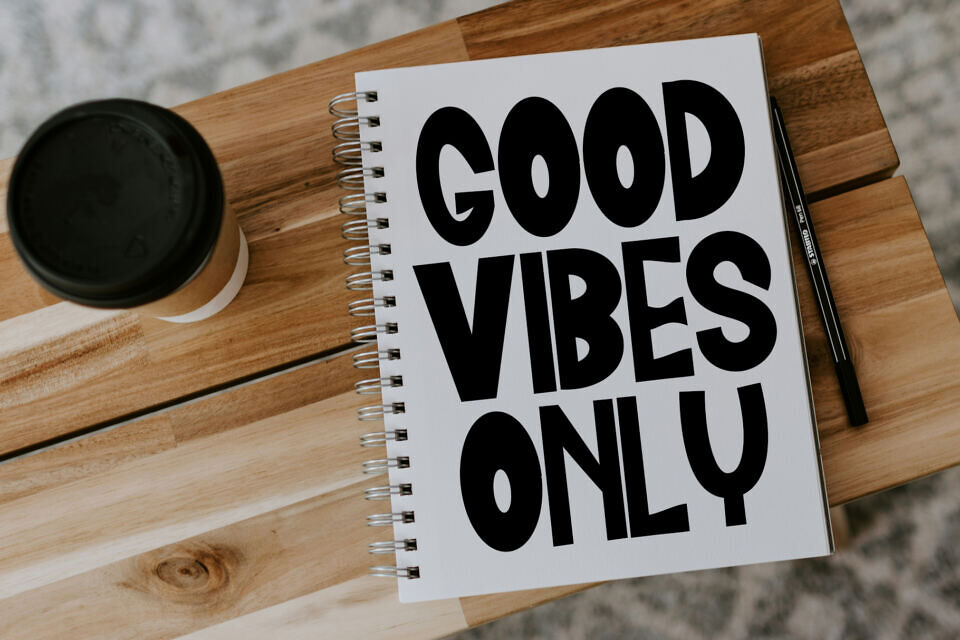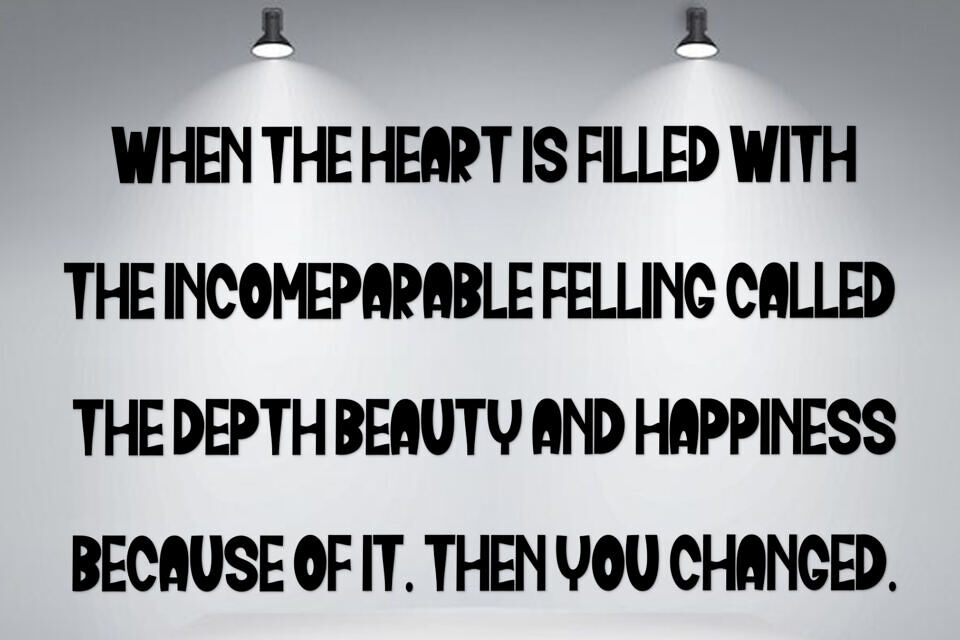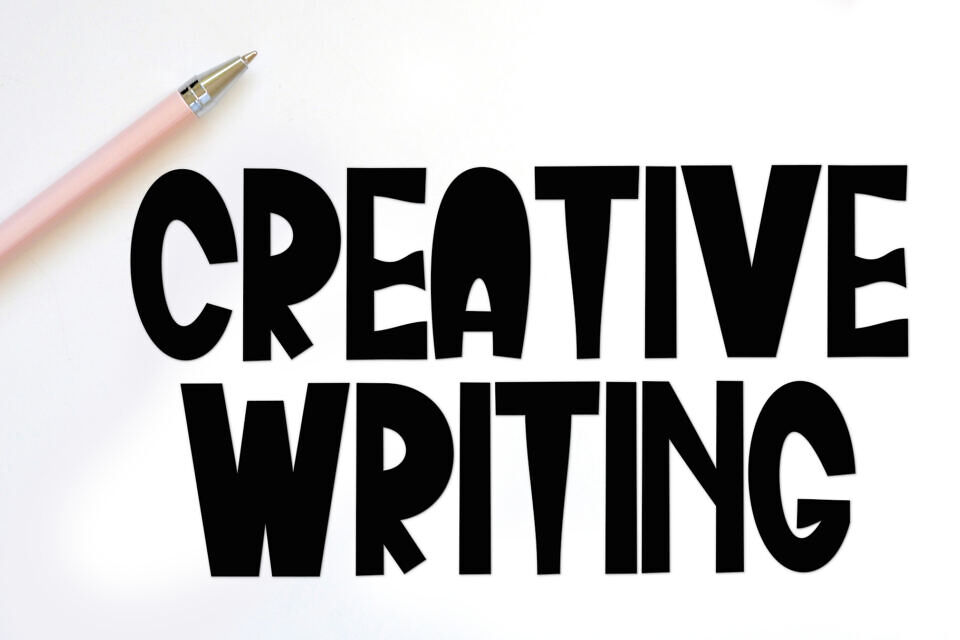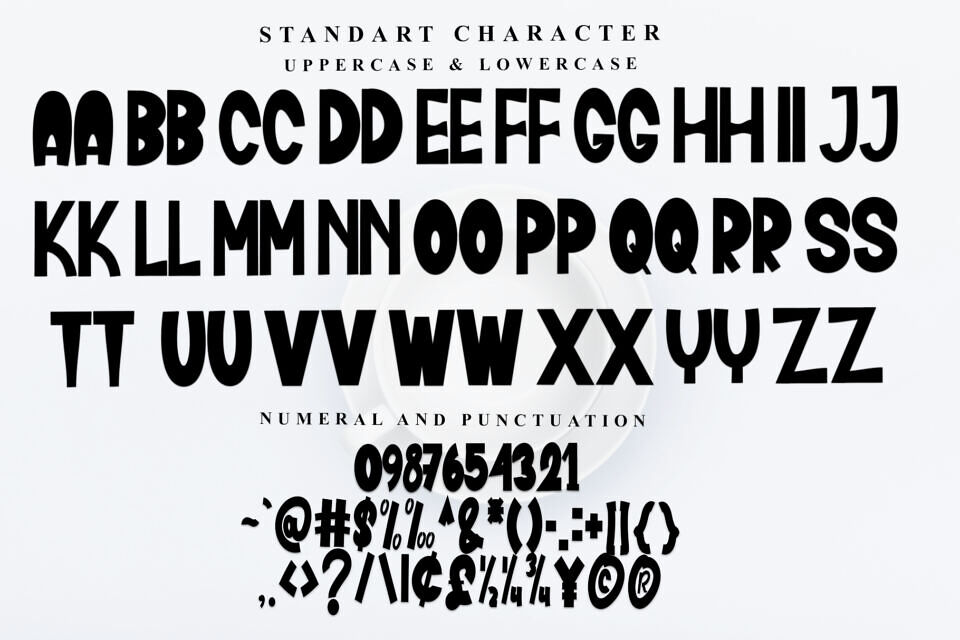
Super Magic is a cute and quirky display font. It will add an incredibly joyful touch to your designs. Add this beautiful display font to each of your creative ideas and notice how it makes them stand out!